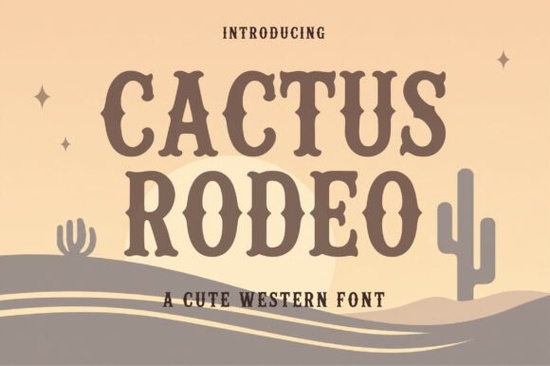
If you're looking for a bold western display font that brings vintage cowboy posters and desert rodeo vibes to mind, Cactus Rodeo Font is worth a close look. Designed with strong serif curves and playful character shapes, it offers that retro wild-west style without feeling like a costume. Whether you're working on branding, t-shirt designs, logos, posters, packaging, or social media graphics, this font gives your projects an authentic western look with a modern vintage touch. It includes uppercase letters, numbers, and stylish punctuation symbols, making it a solid choice for creators who want a unique cowboy aesthetic.
What kind of projects work well with Cactus Rodeo Font?
This font is surprisingly versatile for something with such a strong personality. Here are some of the projects where it really shines:
- Branding for rustic or western-themed businesses – If you're designing a logo for a ranch, a barbecue spot, or a vintage store, this font adds instant character.
- T-shirt and apparel designs – The bold shapes hold up well on fabric, making it a good option for print-on-demand sellers.
- Posters and flyers – Whether it's a rodeo event, a country music night, or a farmers market, the font stands out from a distance.
- Packaging – Think canned goods, spice blends, or craft beverages with a rustic label.
- Social media graphics – Works great for quotes, announcements, and themed posts.
- Uppercase letters – Full A–Z set.
- Numbers – 0–9, styled to match the font's western feel.
- Punctuation symbols – Common punctuation and special characters.
It's a display font, so it's designed for headlines and short text rather than long paragraphs. You'll get the best results when you pair it with a simpler, more neutral font for body text. The playful character shapes are what make it stand out each letter has a bit of personality without being hard to read.
How does Cactus Rodeo compare to other display fonts?
Display fonts are a broad category, and one of the main differences is personality. Cactus Rodeo is unapologetically western. It doesn't try to be neutral or minimal. That's its strength. For designers and small business owners who need a font that tells a story, this is a great fit. It pairs well with rustic textures, desert color palettes, and vintage illustration styles.
Each of these fonts serves a different purpose, so it helps to think about the mood you're trying to create. Cactus Rodeo brings warmth, nostalgia, and a bit of adventure to the table.